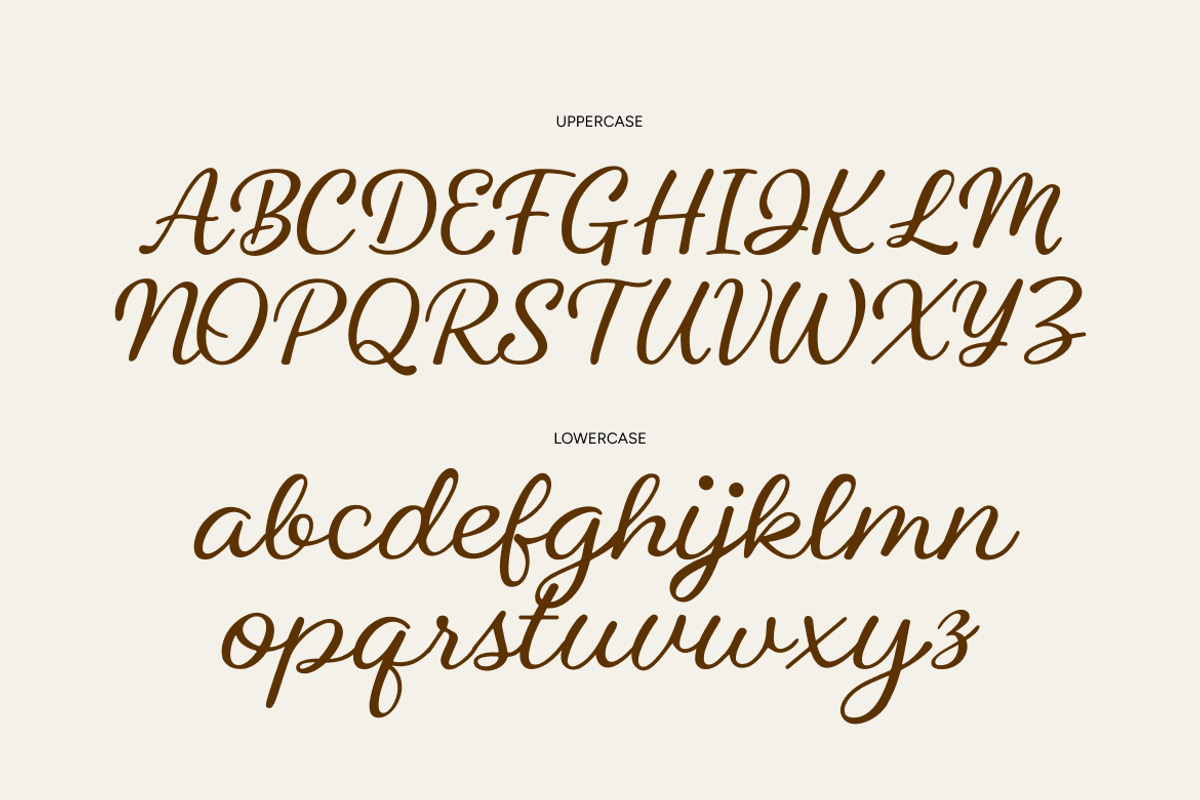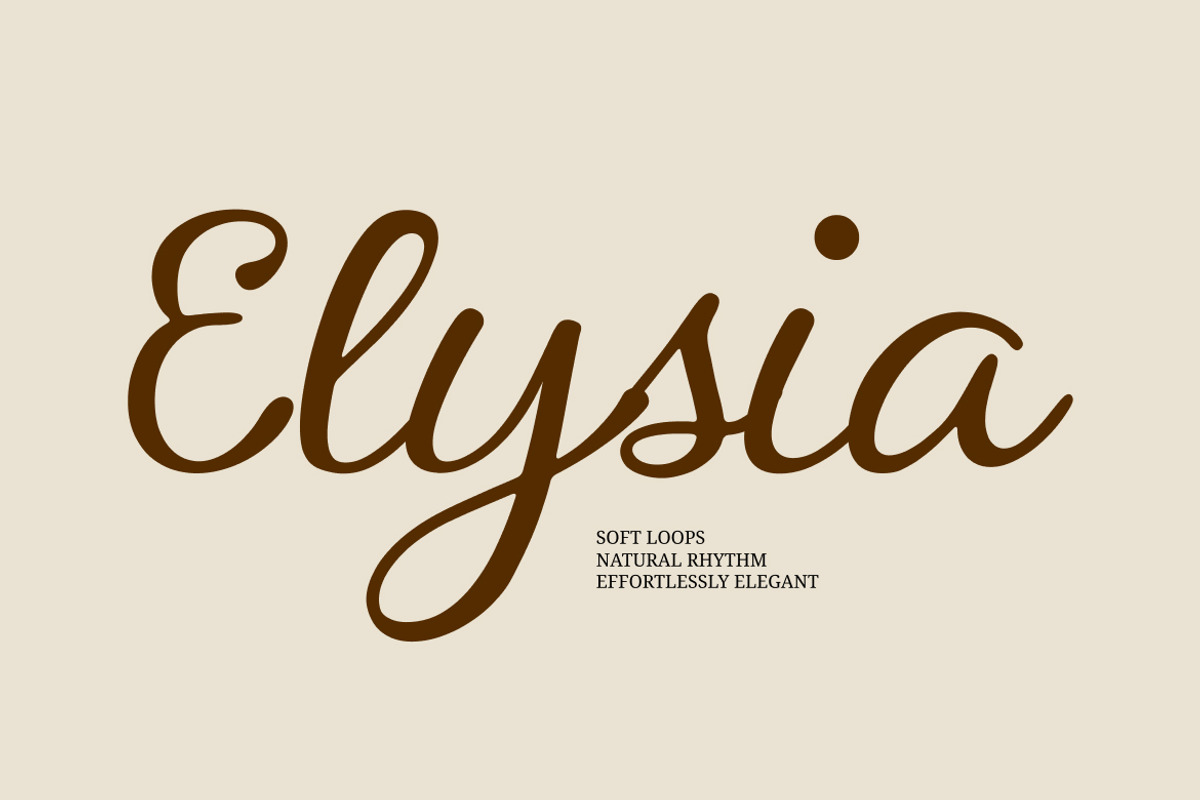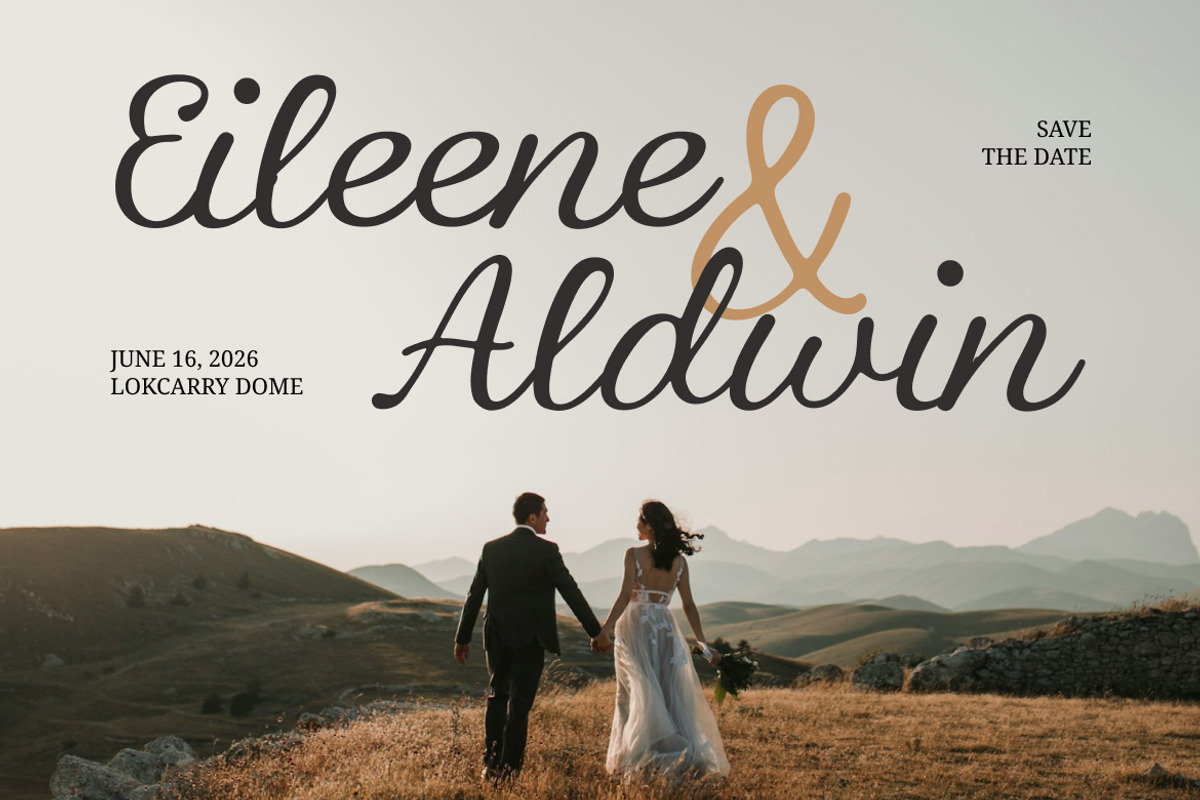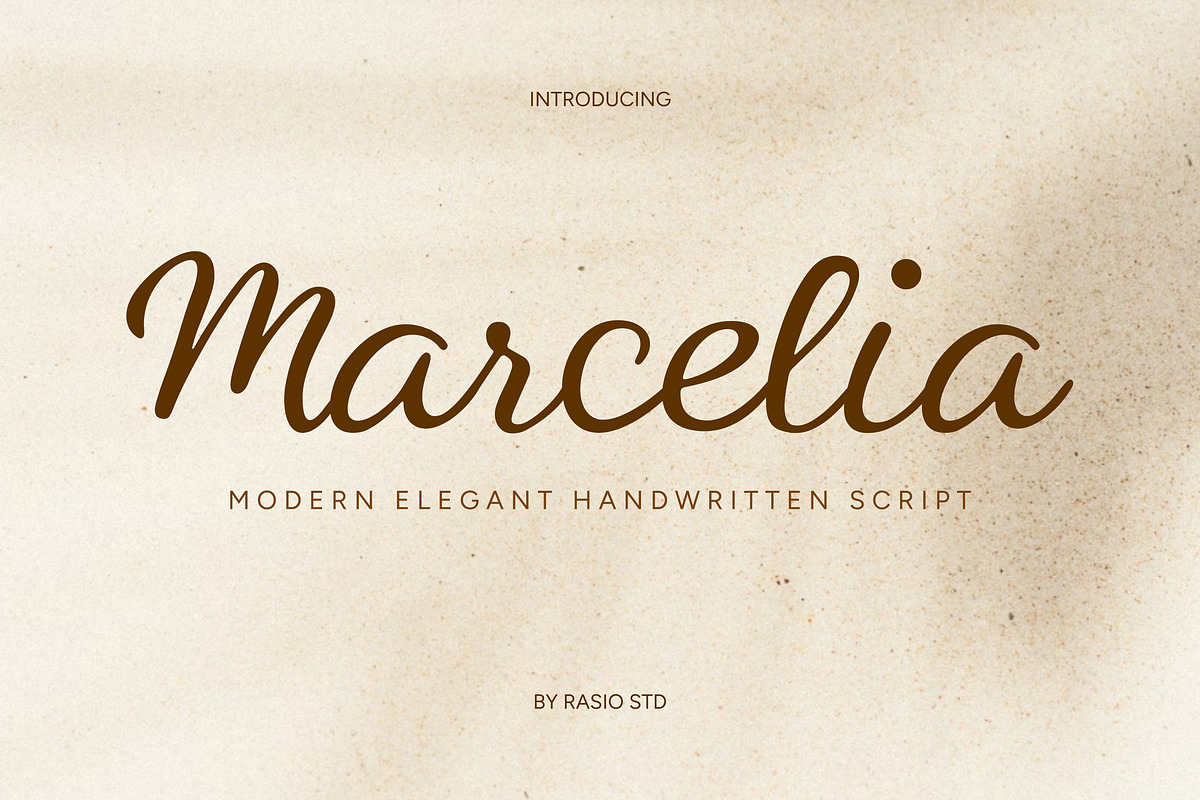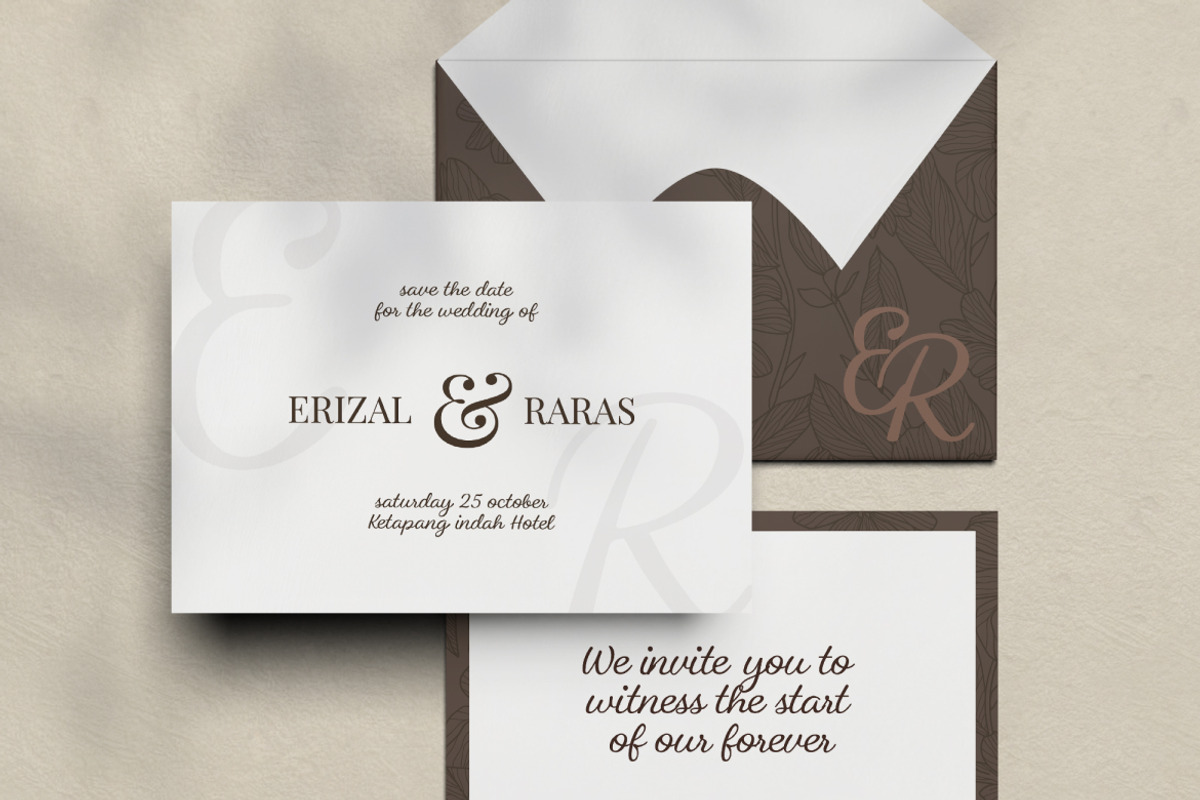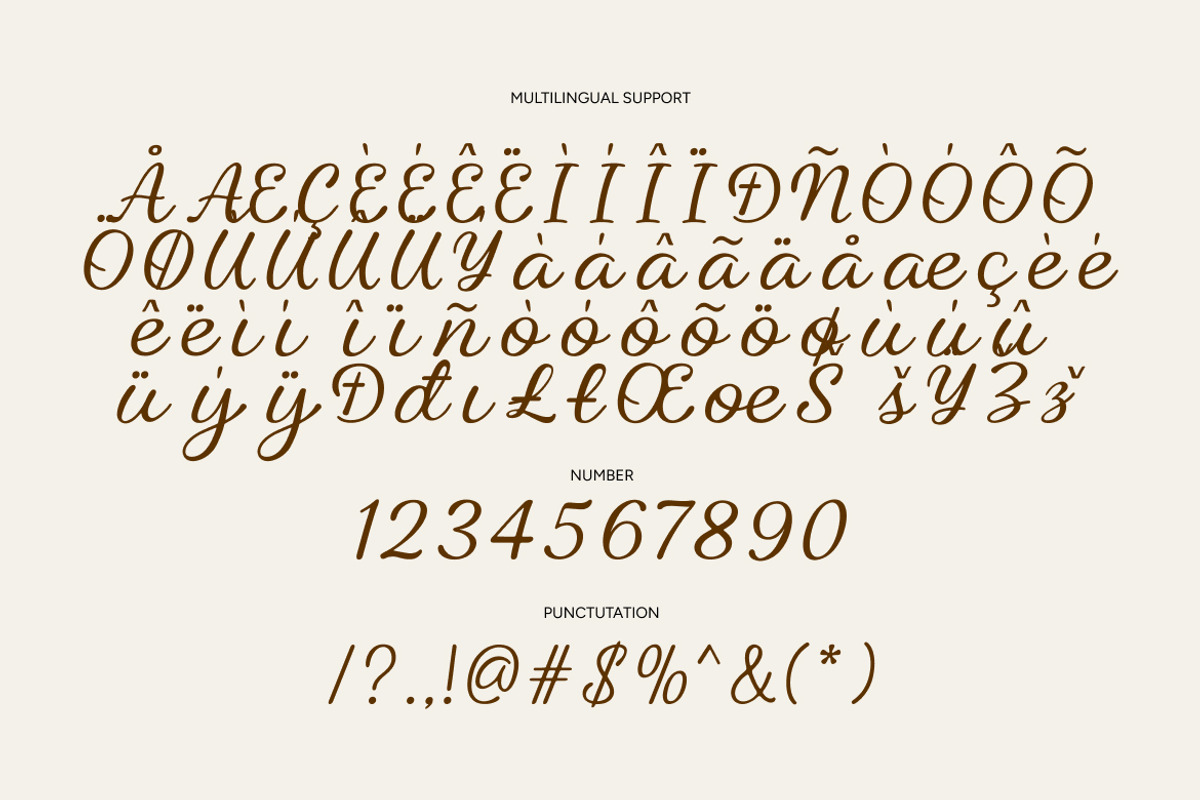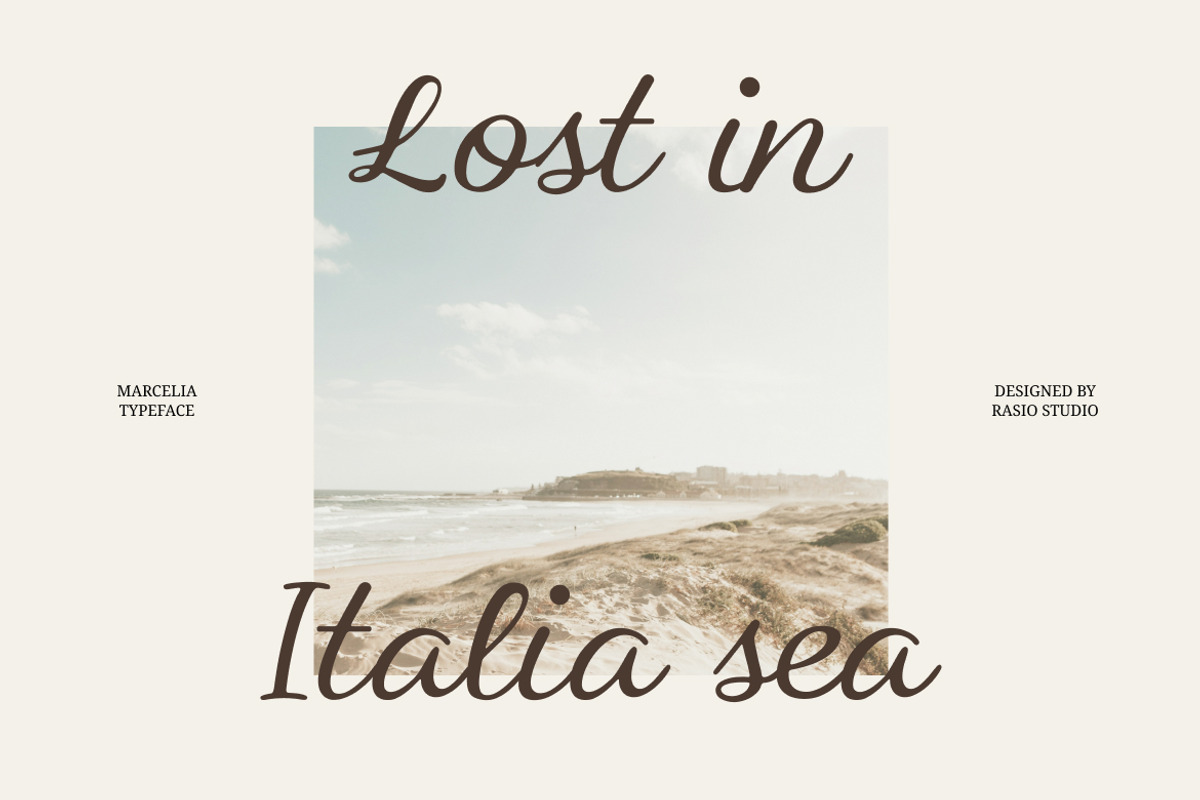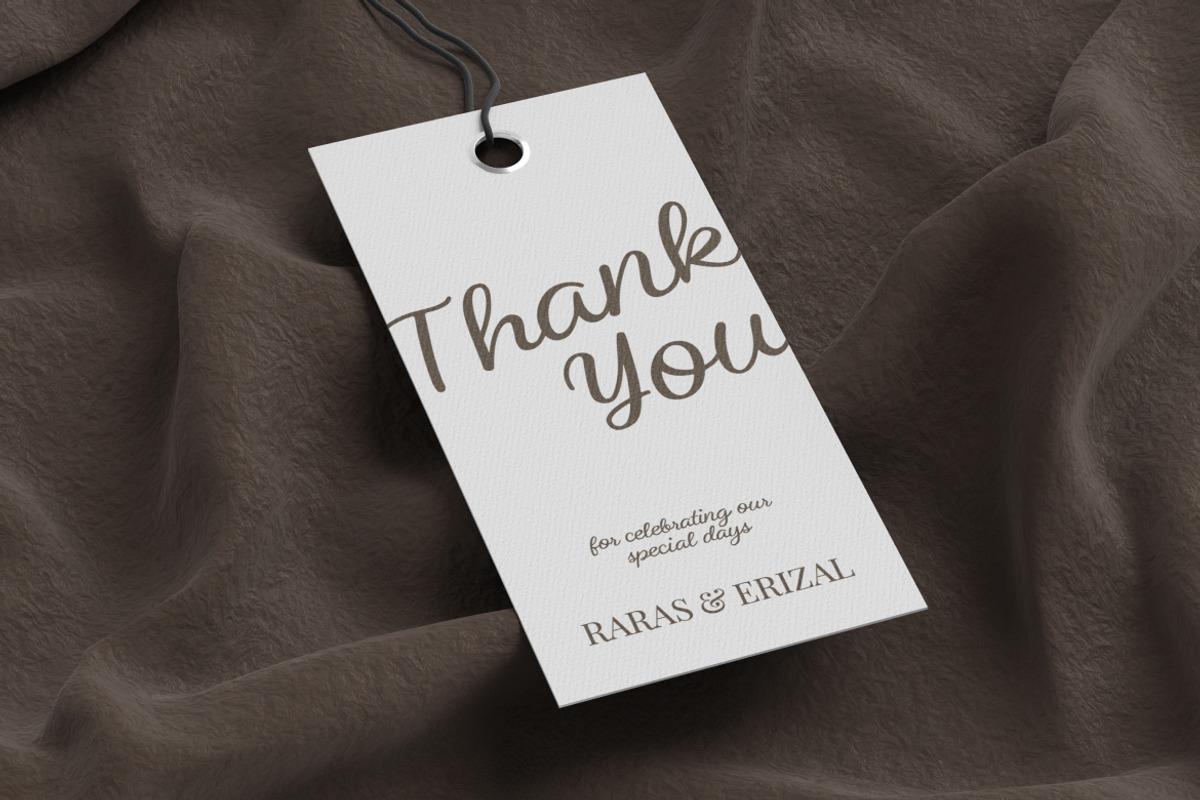
Marcelia Handwritten Script Font
Marcelia is a modern elegant handwritten script font crafted to deliver natural flow, refined curves, and timeless sophistication. Inspired by contemporary calligraphy, this typeface features smooth connecting strokes, graceful swashes, and balanced letterforms that create a romantic and luxurious impression. Designed with fluid stroke contrast and organic movement, Marcelia is perfect for wedding invitations, branding projects, beauty products, fashion editorials, and elegant logo designs.
Marcelia is highly relevant for designers seeking a sophisticated and romantic handwritten script. It is ideal for wedding invitations, save-the-date cards, bridal branding, beauty packaging, fashion campaigns, boutique logos, personal signatures, and elegant social media graphics. The flowing letterforms create warmth and intimacy, making it perfect for projects that require refinement and emotional appeal.
- Elegant handwritten script with natural flowing connections
- Smooth, fluid strokes that mimic modern calligraphy movement
- Subtle stroke contrast for a refined and graceful appearance
- Soft curves and rounded terminals for romantic warmth
- Carefully balanced letter proportions for harmonious composition
- Wedding invitations and save-the-date stationery
- Bridal branding and luxury event identity systems
- Beauty, skincare, and feminine product packaging
- Boutique logo design and signature-style branding
- Fashion editorials and elegant magazine headlines
Let your message feel personal and refined with the beauty of Marcelia